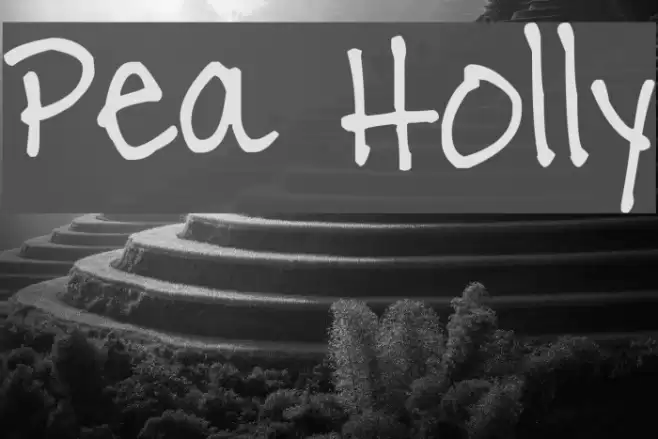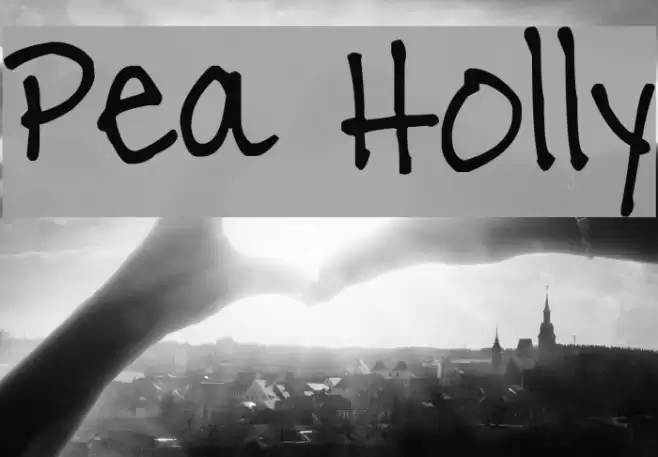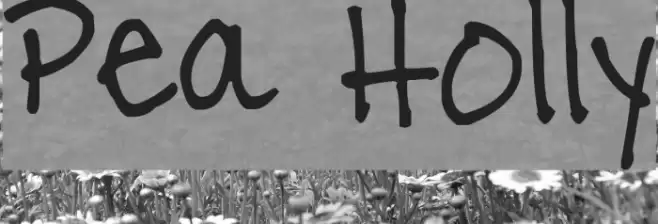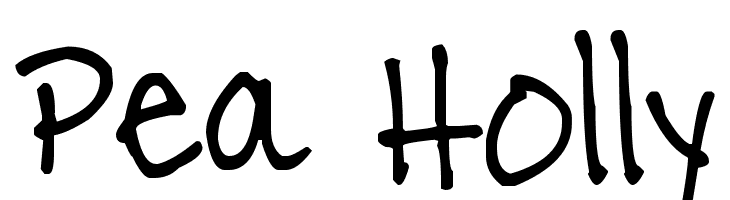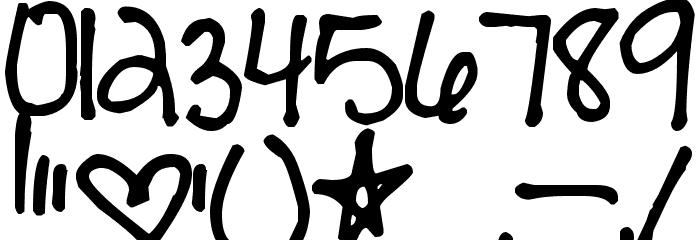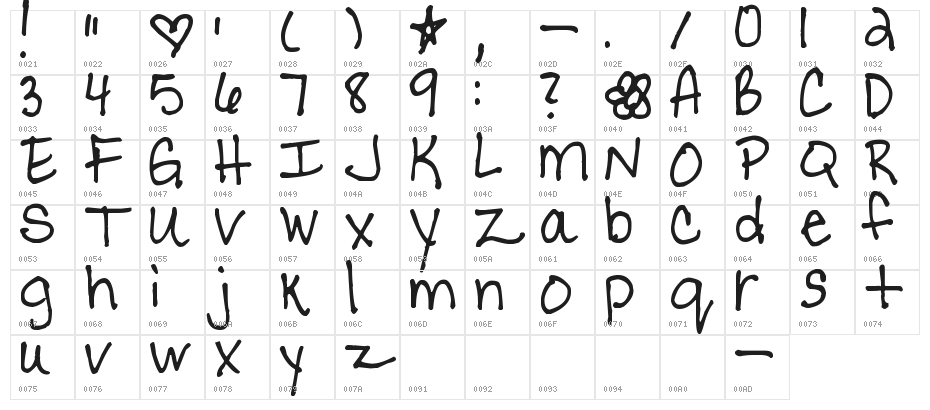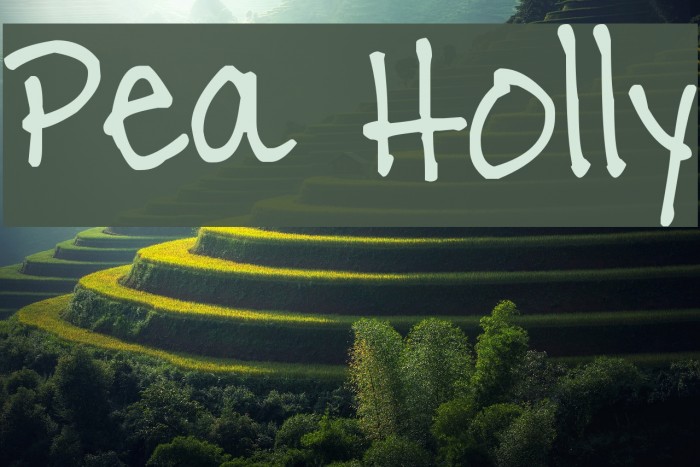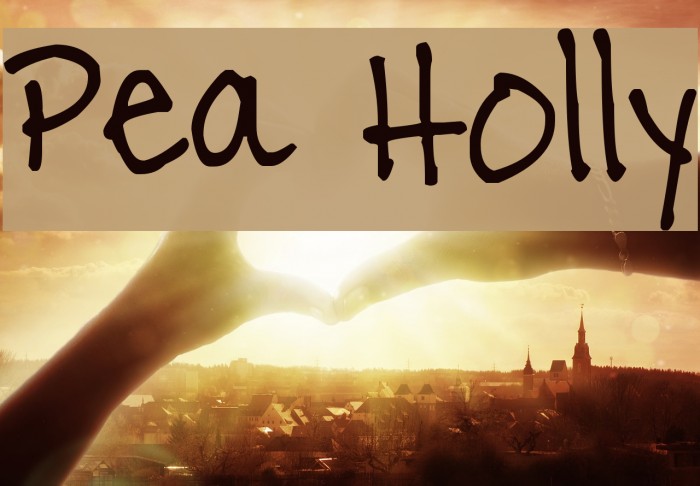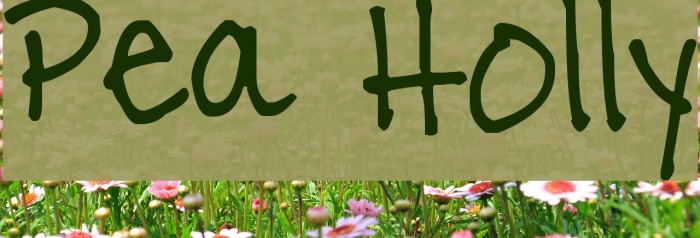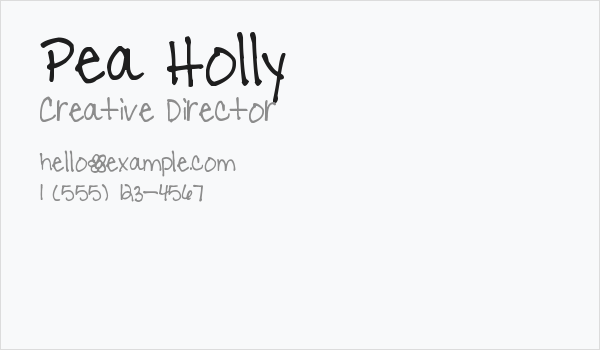
Pea Holly Font
Pea Holly Description
This playful and informal handwritten font exudes a casual and friendly vibe. The letters are slightly irregular, mimicking the natural flow of handwriting, which adds a personal touch to any project. The strokes are bold and confident, giving the text a strong presence while maintaining a whimsical charm. The font includes a full set of uppercase and lowercase letters, numbers, and a variety of special characters, making it versatile for different uses. Its organic style is perfect for projects that require a human touch, such as personal notes, invitations, or creative branding.
A playful, handwritten font with bold, irregular strokes and a friendly, casual vibe from Uncategorized fonts.
- Proposed Projects: Ideal for greeting cards, personal notes, creative branding, and informal invitations.
- Overall Style: Casual, Playful
- Use Case: Logos, Invitations, Personal Notes